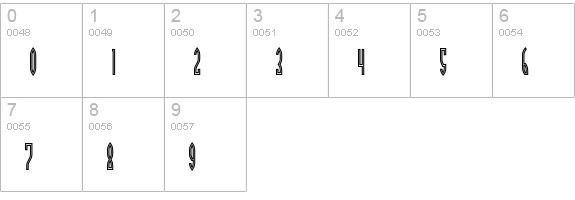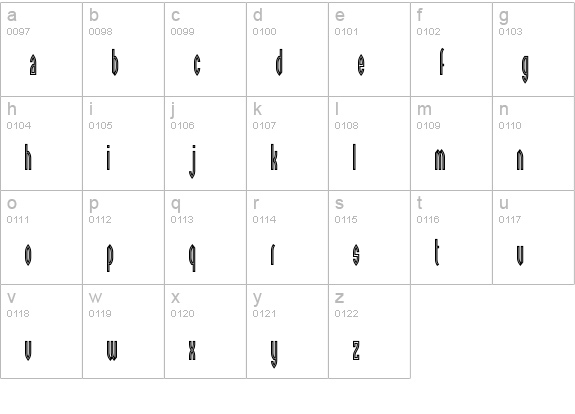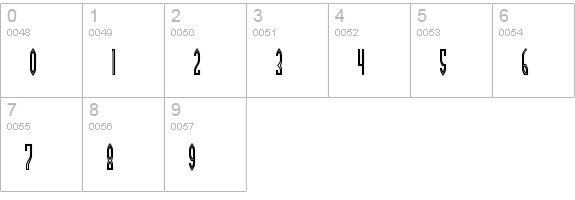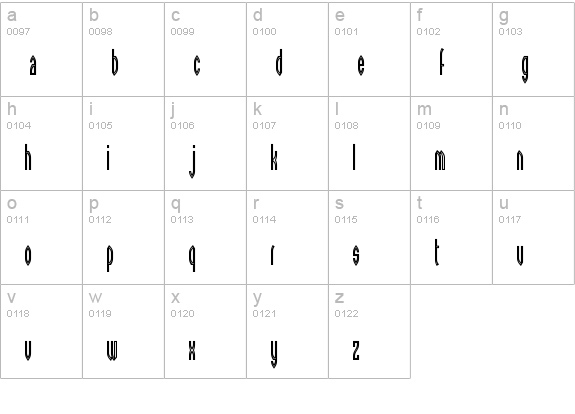
Bromide Font Details
Introducing the stunning Bromide font, a versatile typeface that effortlessly blends modern aesthetics with a touch of elegance. With its clean lines and sleek curves, Bromide is perfect for a wide range of design projects, from branding to editorial design and everything in between. What sets Bromide apart is not just its timeless design, but also the fact that it is completely free to download. Yes, you read that right – this exquisite font is freely available for download at FontsMarket.com. Now you can elevate your designs without breaking the bank, thanks to Bromide's availability as a free resource. Whether you're a seasoned designer looking for a fresh addition to your font library or a newcomer eager to explore the world of typography, Bromide is sure to impress with its versatility and style. Download it today and unlock a world of creative possibilities with this exceptional font.